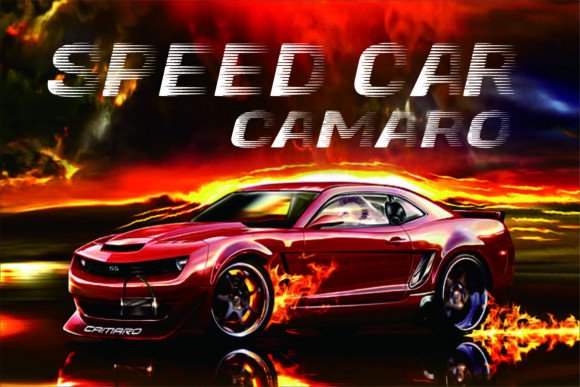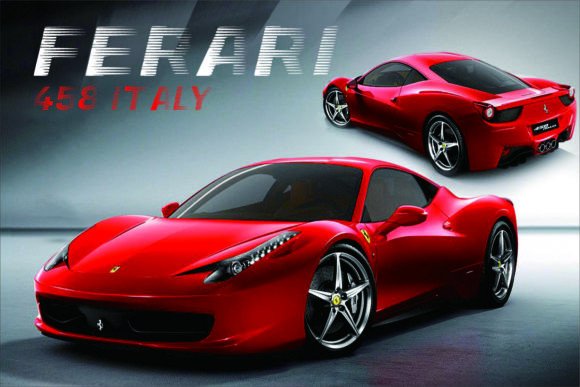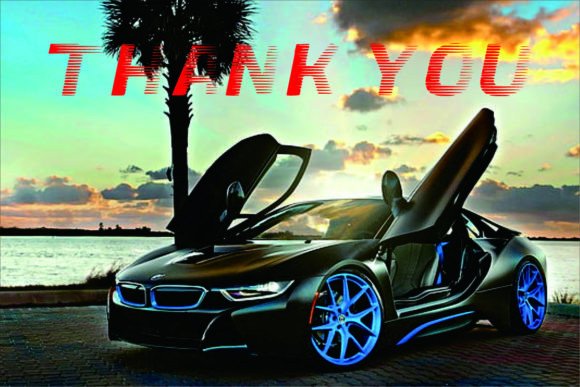
Introduction to Race Speed Font Font
Fonts play a crucial role in design, and the Race Speed Font font is a typeface that brings both character and versatility to any project. Whether you’re working on a branding project, a website, or a print design, the Race Speed Font font offers a unique style that can elevate your work.
Race Speed is a racing-style display font that symbolizes power and speed.
You can use it for racing-themed designs logos, t-shirts, posters, backgrounds, and more .
The Race Speed Font font is more than just a typeface – it’s a design tool that helps you communicate your message with style and clarity. Its unique character set and versatile design make it suitable for a wide range of applications, from elegant invitations to bold headlines.
With its carefully crafted letterforms and balanced proportions, the Race Speed Font font ensures readability and visual appeal across all mediums.
The Race Speed Font font stands out with its unique design, exceptional readability, and versatility across various design applications.